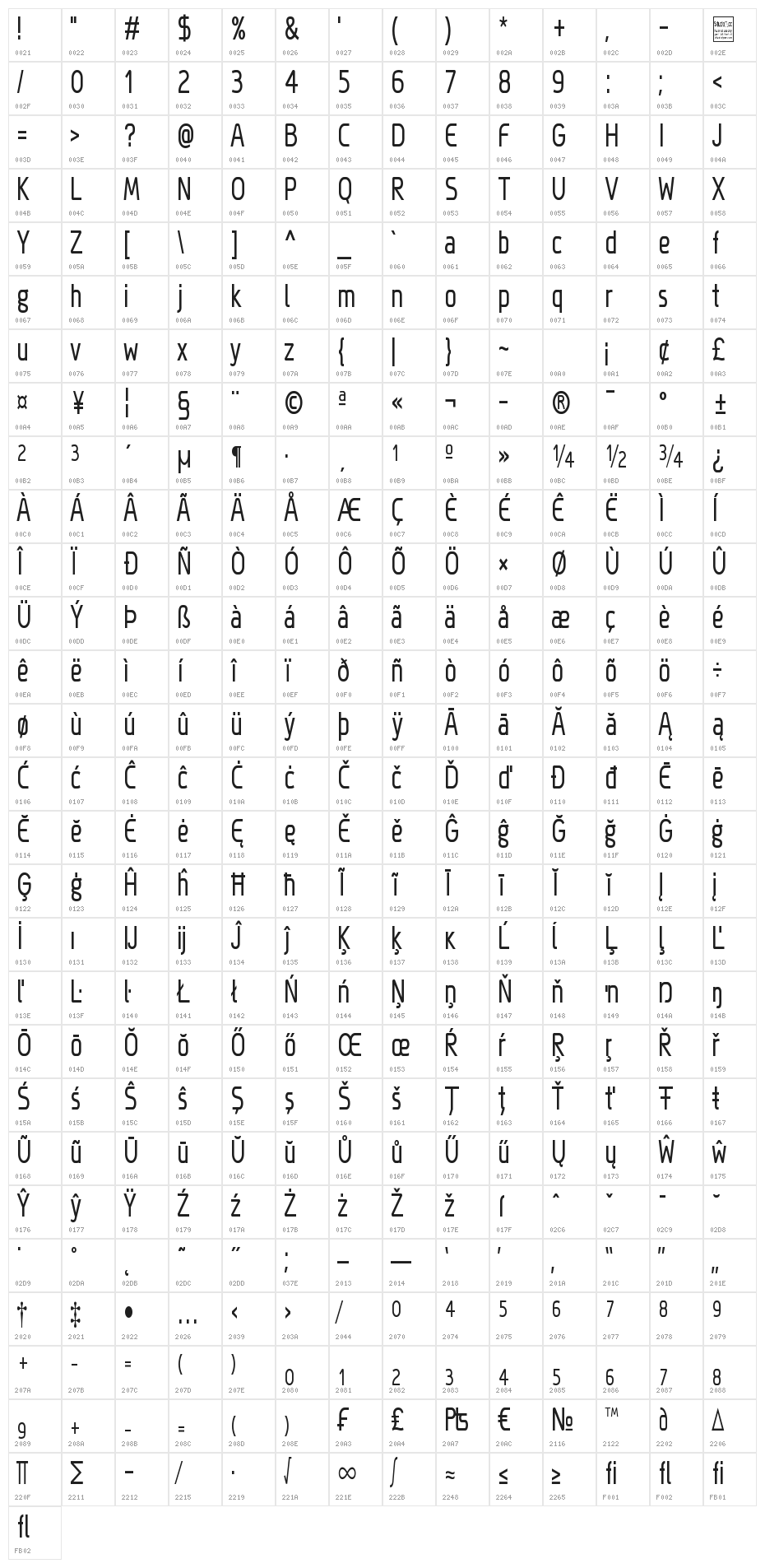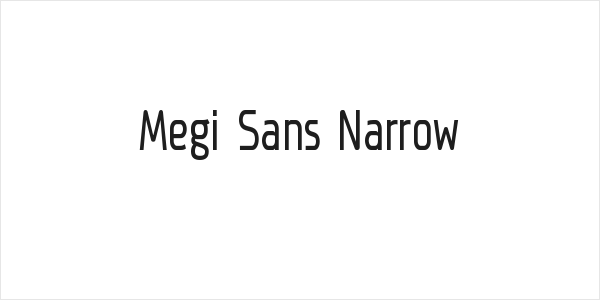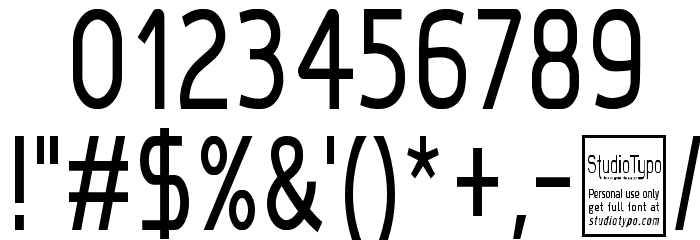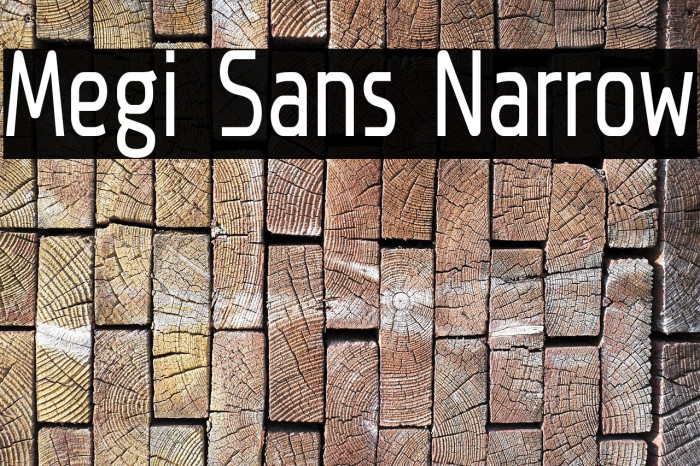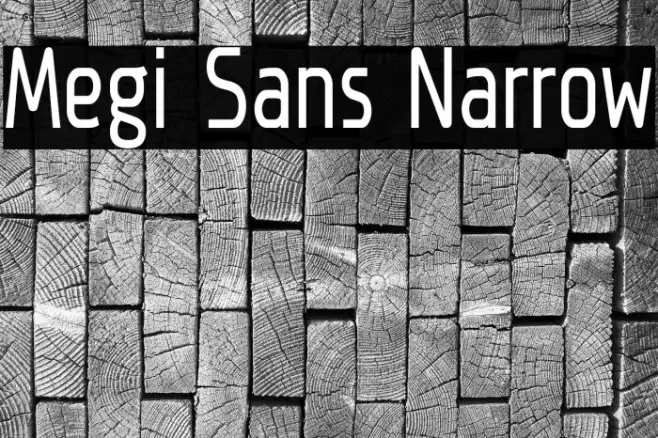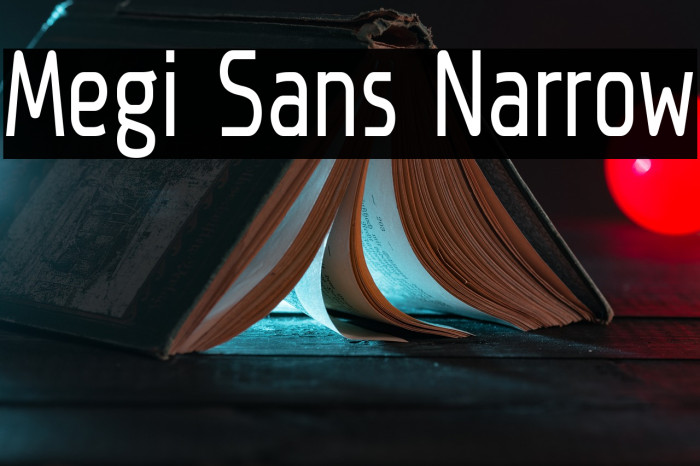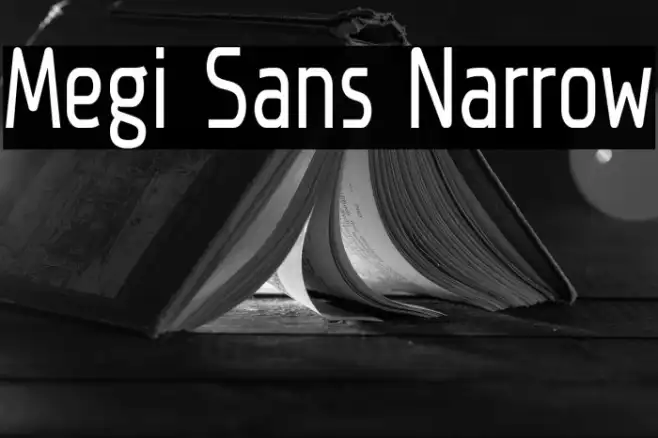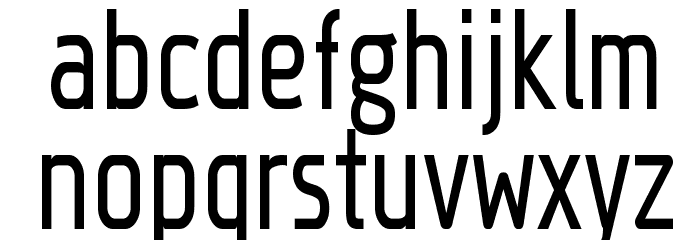
Megi Sans Narrow Font
Megi Sans Narrow Description
This font features a clean and modern sans-serif style with a narrow width, making it ideal for space-efficient designs. The characters are uniformly structured, with a consistent stroke width that provides a sleek and contemporary appearance. The uppercase letters are tall and slightly condensed, while the lowercase letters maintain a balanced proportion, enhancing readability. The numerals are clear and distinct, matching the overall geometric style of the font. Special characters are well-integrated, ensuring versatility in various design contexts. This font's simplicity and elegance make it suitable for a wide range of applications.